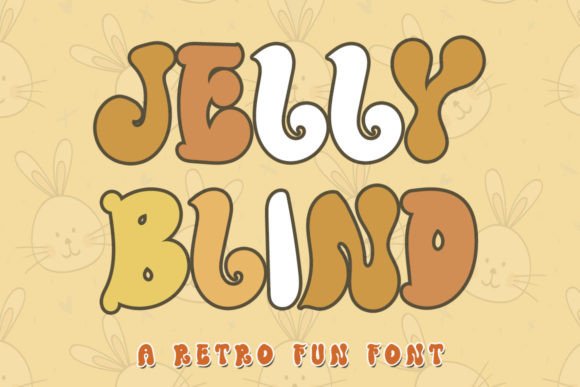
Jelly Blind Font for Retro-Inspired Web Design
Jelly Blind is a retro display font that brings a fresh and clean aesthetic to digital projects with just the right amount of quirk. As a web designer, I know how important it is to choose a typeface that not only looks great but also enhances readability and aligns with brand tone. Jelly Blind ticks all these boxes while adding an eye-catching visual flair to headers, logos, and other key design elements.
Jelly Blind for Wedding Invitations and Elegant Branding
When working on wedding websites or boutique branding, a delicate balance between charm and clarity is essential. Jelly Blind excels in this space by offering a sweet, nostalgic feel without compromising legibility. Its rounded characters and subtle contrast make it perfect for hero sections and call-to-action buttons where you want to evoke warmth and approachability. The font works especially well when paired with minimalist sans serif fonts for body copy, ensuring your message remains clear while the branding feels personal and memorable.
Jelly Blind in Creative Portfolio Websites
For designers showcasing their own work, Jelly Blind can serve as a unique signature element in portfolio sites. Used in headers or subheaders, it helps establish a creative personality while maintaining professionalism. The font’s quirky nature fits well in artistic niches like illustration, photography, or motion design — areas where standing out is often more valuable than blending in. Just be sure to use it sparingly; too much of any display font can overwhelm a layout.
Jelly Blind for Landing Pages and Conversion-Focused Layouts
Landing pages are all about guiding the user toward a specific action, and typography plays a big role in that journey. Jelly Blind adds a playful yet polished touch to section headings and banners, helping to break up content while keeping the tone friendly and inviting. It’s particularly effective in course sales pages and SaaS landing designs where you want to communicate innovation and creativity. When using Jelly Blind for conversion-focused layouts, ensure it’s reserved for headlines rather than long-form text to maintain visual hierarchy and guide attention toward key messages.
Jelly Blind in Online Shop Banners and Product Headers
E-commerce platforms need fonts that catch the eye and build trust. Jelly Blind, with its retro vibe and modern clarity, is ideal for product headers and promotional banners. Whether you're designing for a vintage-inspired boutique or a contemporary lifestyle brand, this display font can help set the mood while remaining easy to read at various sizes. For best results, pair it with a neutral sans serif or a refined slab serif to keep the overall design cohesive and scannable across devices.
Jelly Blind for Branded Web Experiences and Visual Consistency
Consistency is key in building a strong online identity. Jelly Blind allows you to inject a distinct character into your design system while staying aligned with brand values. Its consistent stroke width and open apertures support a smooth reading experience, even in smaller sizes. This makes it suitable for short phrases, logo text, and decorative accents throughout your site — from navigation menus to social media graphics. By integrating Jelly Blind into your brand kit, you can create a unified look across landing pages, email templates, and app interfaces.
Jelly Blind in Blog Headers and Content Sections
Blogs and content-driven websites benefit from typographic variety that keeps readers engaged. Jelly Blind can elevate blog headers, category titles, and featured post sections with a bold yet elegant presence. Because it’s a display font, it’s most effective when used in larger sizes and limited to short lines of text. For longer articles, opt for complementary fonts with better line spacing and x-heights to maintain a comfortable reading rhythm. This strategic use of Jelly Blind ensures your editorial content feels both professional and visually stimulating.
Jelly Blind for Digital Ads and Social Media Graphics
In the fast-paced world of digital marketing, first impressions matter. Jelly Blind’s retro style and clean structure make it a standout choice for ad headlines and social media posts. It works beautifully in short taglines, image overlays, and animated banners where quick recognition is crucial. Marketers and bloggers can leverage this font to create shareable content that stands out in crowded feeds. Just remember to test how it renders on mobile screens — the font should remain legible even at reduced sizes.
Jelly Blind in App Screens and UX Elements
App designers often rely on display fonts to differentiate UI components and enhance user experience. Jelly Blind is a great option for splash screens, feature highlights, and onboarding messages where you want to make a memorable impression. Its slightly whimsical personality suits lifestyle apps, creative tools, and educational platforms. However, avoid using it for small buttons or microcopy; stick to its strengths in larger, decorative text blocks to preserve usability and reduce cognitive load.
Jelly Blind for Logo Design and Brand Identity Systems
A logo is the face of your brand, and the right font can make all the difference. Jelly Blind offers a vintage-inspired twist that can help brands stand out in industries like fashion, food, or entertainment. Its balanced proportions and soft curves lend themselves well to logo treatments that feel both stylish and trustworthy. If you’re building a brand identity around nostalgia or artisanal values, consider using Jelly Blind as your primary logotype font. Always check if it supports multilingual characters, depending on your target audience, and confirm webfont availability for seamless integration into digital assets.
Whether you're designing for a high-end brand or a casual blog, Jelly Blind brings a retro charm that’s hard to ignore. As a display font, it’s best used in prominent positions where it can shine without competing with dense text. From wedding websites to SaaS platforms, it’s a typeface that blends personality with practicality. Keep it in your toolkit for the next time you need a font that’s both beautiful and functional — because in digital design, every detail counts.